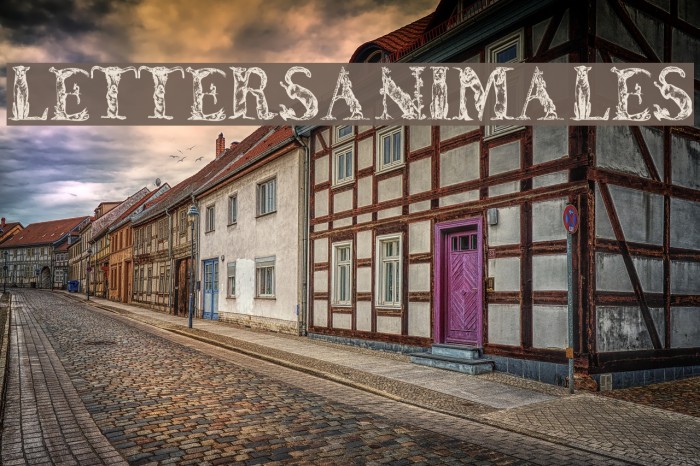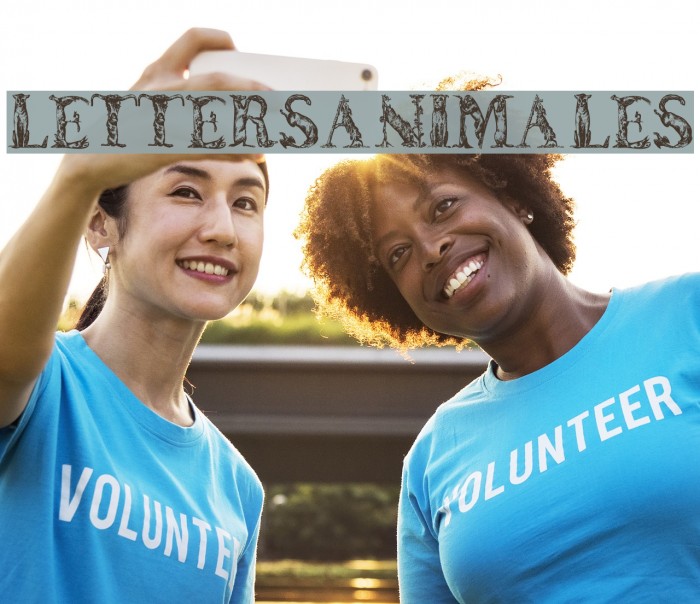
LettersAnimales Font
This font is a highly decorative and artistic typeface that incorporates intricate animal motifs into the design of each letter. The characters are embellished with detailed illustrations of various animals, creating a unique and whimsical appearance. The font's elaborate style makes it ideal for creative projects that require a touch of fantasy or nature-inspired themes. The letters are bold and eye-catching, with a high level of detail that draws the viewer's attention. This font is perfect for use in projects where a strong visual impact is desired, such as in posters, book covers, or themed event invitations.
A decorative font featuring intricate animal motifs within each letter.
- Proposed Projects: Ideal for posters, book covers, themed event invitations, and creative projects requiring a fantasy or nature-inspired theme.
- Category: Decorative/Display
- Contrast: High